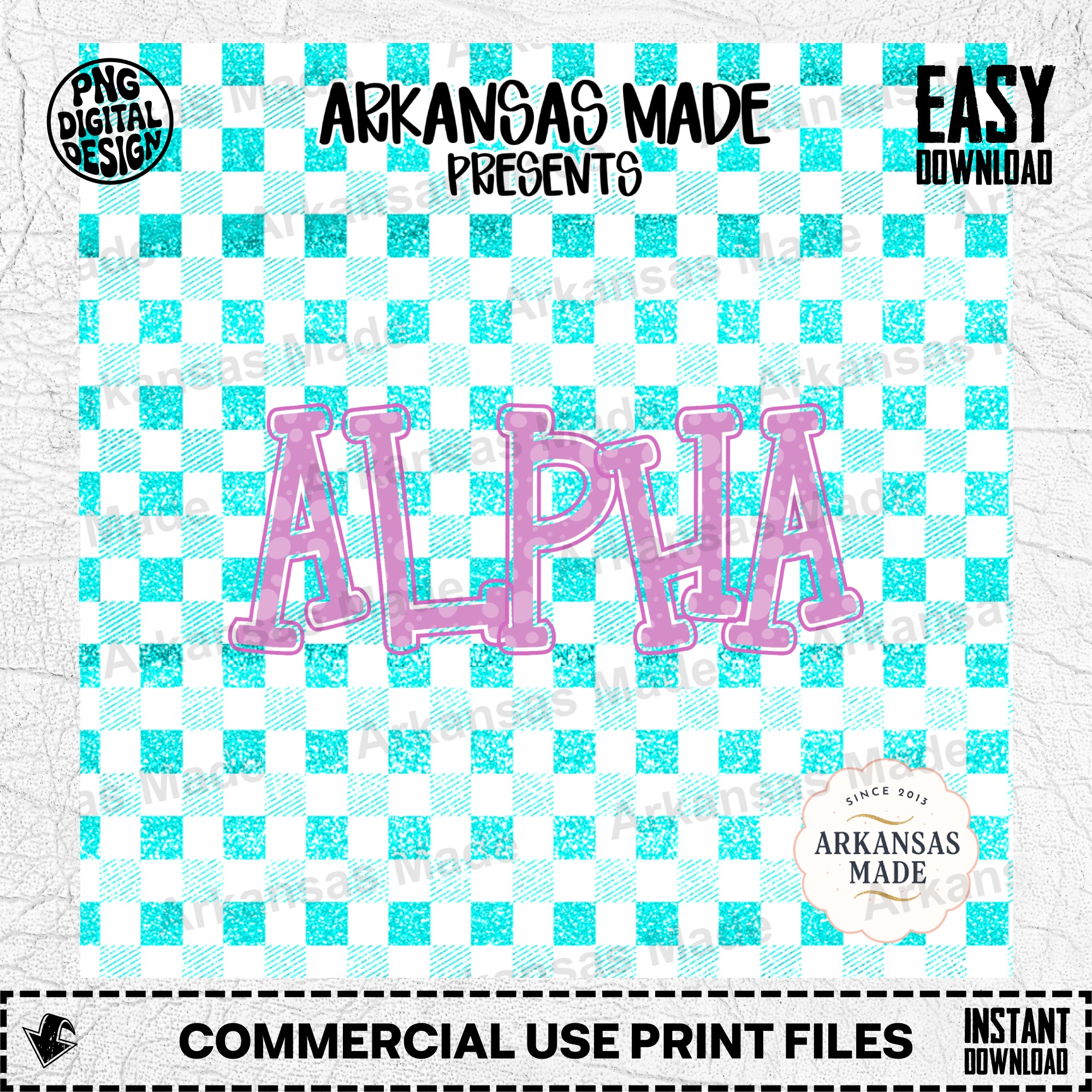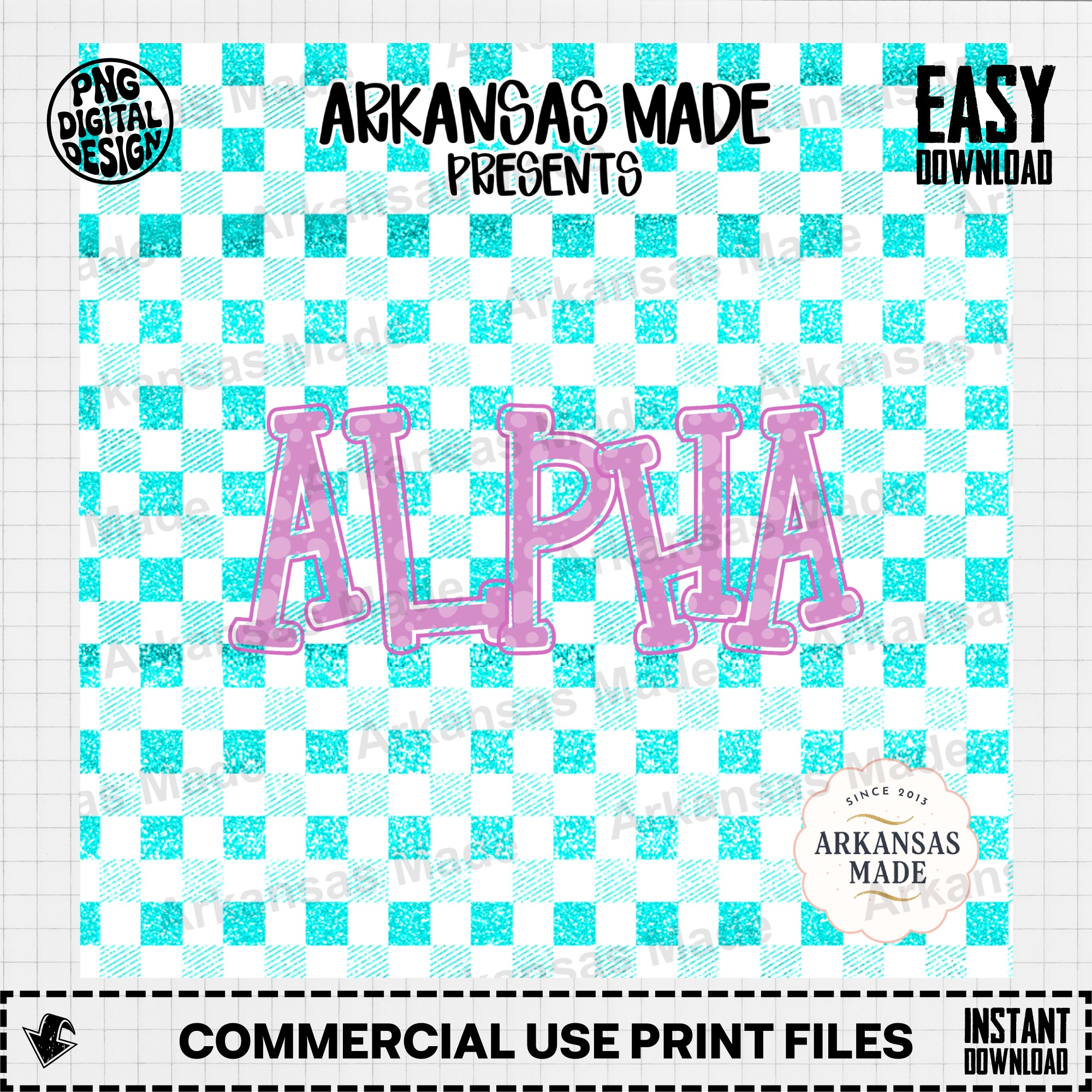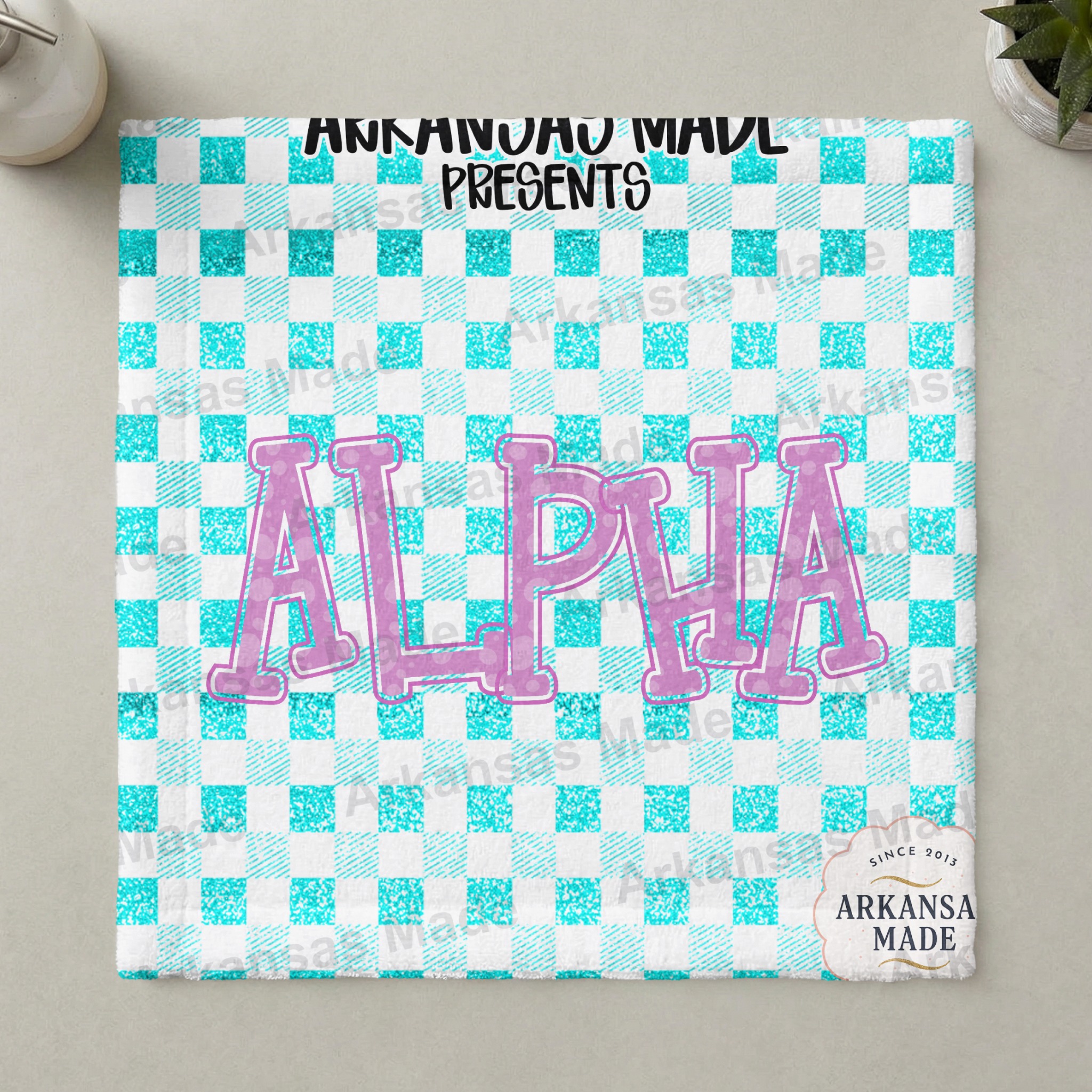
Chunky Alpha Set Digital Download, Y2K Glitter Letters PNG, Sorority Font Alphabet, Teal Purple Polka Dot Alpha Pack, Trendy Craft Supply
Elevate your designs with this vibrant Chunky Alpha Set Digital Download! Featuring Y2K glitter effect letters and a trendy teal and purple palette. Perfect for crafters, small business owners, and sorority sisters, this instant download alpha pack brings a fun, preppy aesthetic to any project. Create personalized shirts, stickers, or digital art for birthdays, graduation, or a special gift for her. Unleash your creativity with these eye-catching, faux glitter and polka dot themed alphabet PNGs.